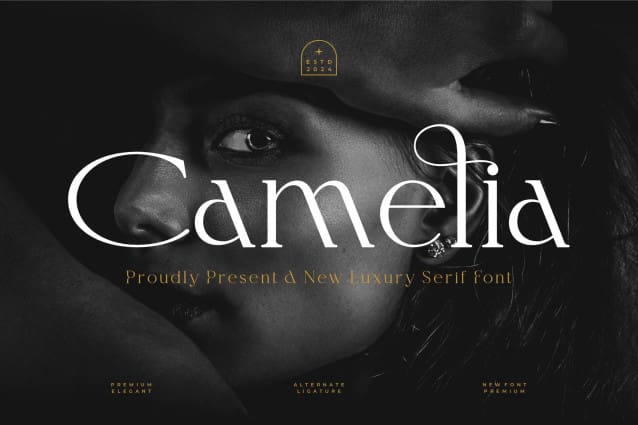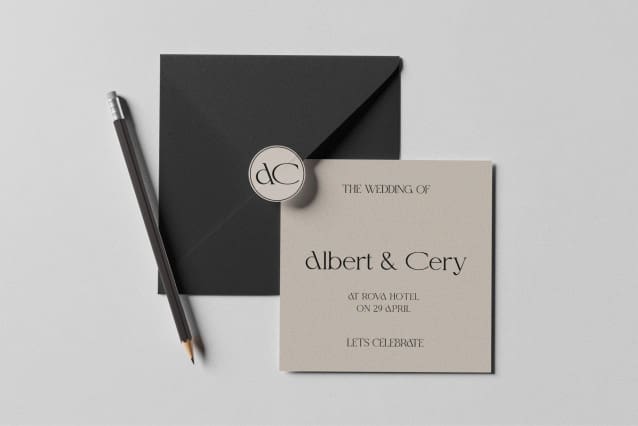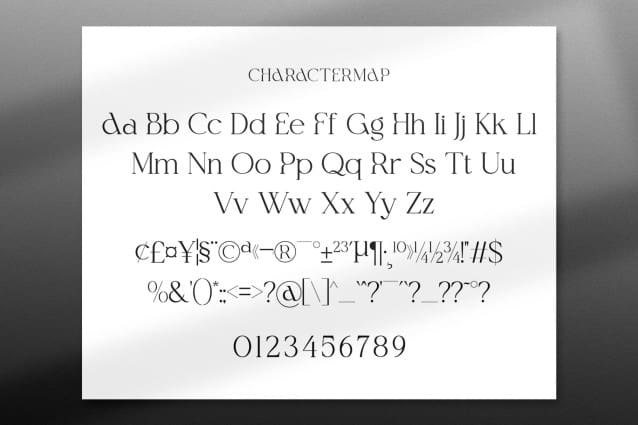
Camelia Serif Font
Camelia Serif Font is a very elegant and classy font type for all branding and logo designs. This modern and classy Serif font has a beautiful character. This font is suitable for invitation card designs, cool logos, movie titles, movie names, business cards, book titles, brand names, and various other designs. Camelia Serif is a smooth serif font that exudes sophistication and elegance. Its stylish alternations and ligatures make this font a perfect partner for any project.